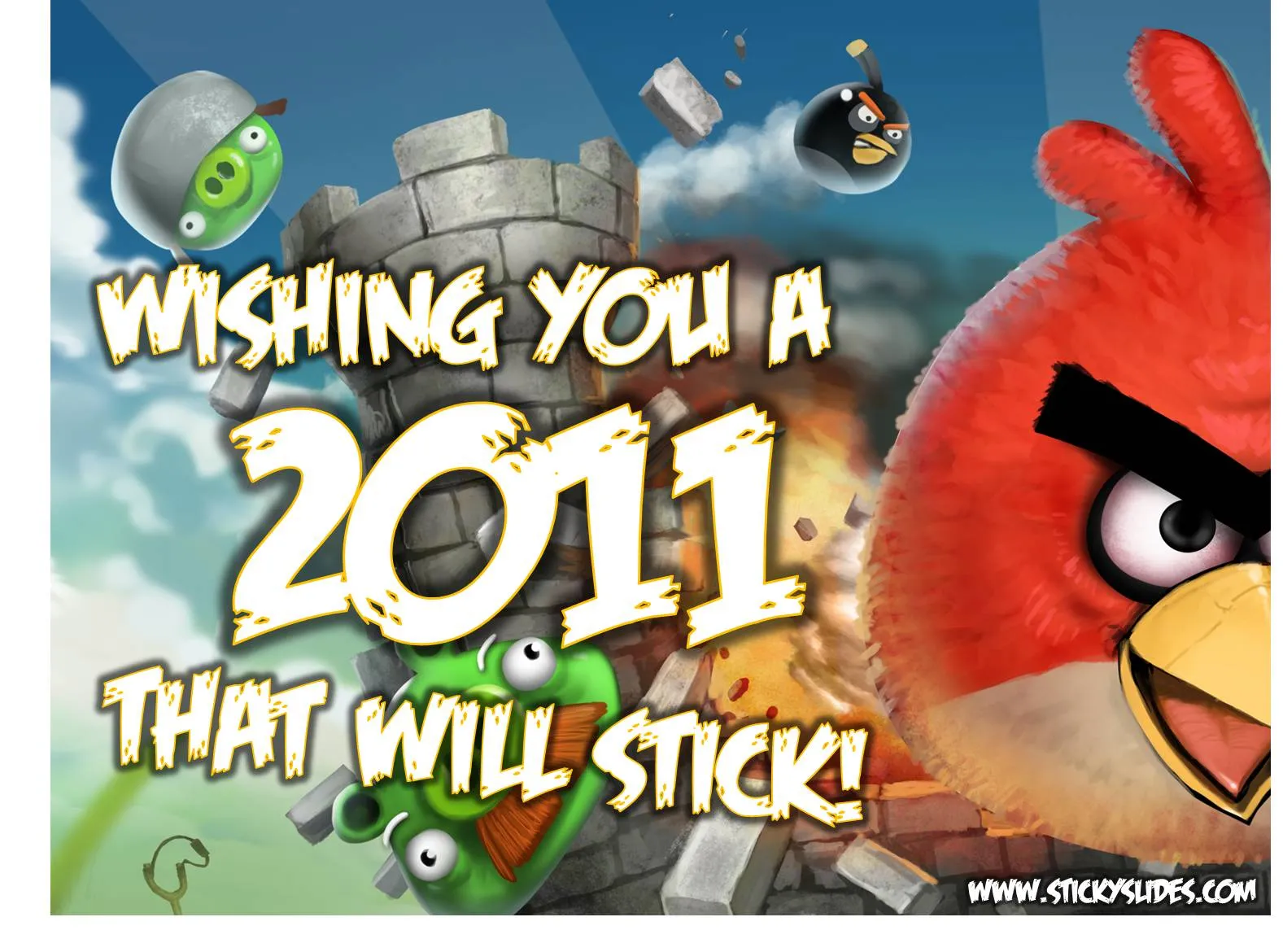
Angry Birds fonts in PowerPoint!
Here is the post to close 2010 and wish you all the best for 2011: Angry Birds fonts in PowerPoint.
4. Type a text, and set the font as Feast of Flesh
5. Increase the size
6. Select the text, and click “format”
7. Pick a nice yellow in “text outline”, set the weight to 1pt
8. Staying in “format”, select “text effects”
9. Select “glow”
10. Select “more glow options”
11. Pick the black one
And you are done!